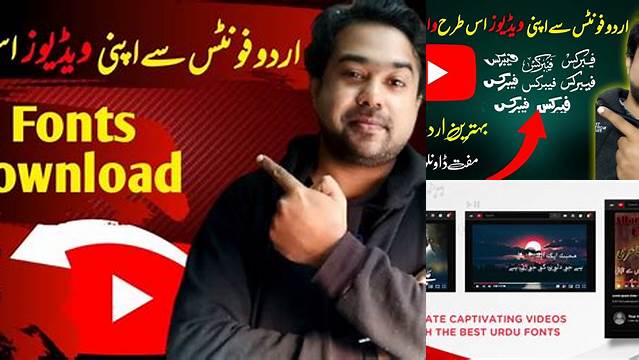
Best Urdu Fonts For Eye-Catching YouTube Thumbnails
Hey everyone! Creating awesome YouTube thumbnails is super important if you want those clicks and views. And if you're making content in Urdu, you know how crucial it is to have beautiful and readable Urdu fonts. So, let's dive into the world of Urdu fonts for YouTube thumbnails and explore some of the best options out there to make your videos pop! This guide will walk you through everything β from choosing the right font to actually using them in your thumbnail designs. Get ready to level up your thumbnail game, guys!
H2: Why Urdu Fonts Matter for Your YouTube Thumbnails
Alright, so why is using the right Urdu fonts for your YouTube thumbnails such a big deal? Well, think about it this way: your thumbnail is the first thing people see. It's the virtual handshake that either invites them to click or sends them scrolling. If your Urdu text looks blurry, unreadable, or just plain ugly, viewers are likely to skip right over it. That's a bummer, right? High-quality Urdu fonts not only look professional but also communicate your message clearly and effectively. They help you:
- Grab Attention: Distinctive fonts are eye-catching and make your thumbnail stand out from the crowd. In the sea of thumbnails, you need something special, and well-chosen Urdu fonts will do the trick.
- Enhance Readability: Clear fonts make it easy for viewers to quickly understand what your video is about, even at a glance. Nobody wants to squint to figure out your content.
- Boost Professionalism: Using well-designed fonts signals that you care about the quality of your content, which builds trust with your audience. It shows that you are detail-oriented.
- Communicate Emotion: Fonts have personalities! They can be bold, playful, serious, or elegant, helping you convey the mood of your video. Think about what you're trying to show.
- Brand Consistency: Choosing a consistent font for all your thumbnails helps establish your brand and make your content easily recognizable.
Choosing the right fonts is all about understanding your audience and your content. For instance, if you're creating comedy videos, you might go with a more playful font. If you're doing a serious educational series, a more elegant and readable font is a better option. You should also think about the colors, layout, and overall design of your thumbnail to make sure the Urdu fonts perfectly complement everything else. Remember, your thumbnail is a mini-advertisement for your video, so make it count with the right Urdu fonts!
H2: Top Urdu Font Choices for YouTube Thumbnails
Okay, let's get into some of the best Urdu fonts for your YouTube thumbnails. There are tons of options, but here are some of my top picks, along with why they work so well:
- Jameel Noori Nastaleeq: Ah, the classic! This is probably the most famous and widely used Urdu font. It's known for its beautiful calligraphy style, which is super elegant and easy to read. It's perfect for any kind of content β from religious videos to educational content. While Jameel Noori Nastaleeq is a great choice, make sure you use it at a legible size. Sometimes, the intricate design can be hard to read when it's too small.
- Nafees Nastaleeq: If you're looking for a slightly more modern take on Nastaleeq, Nafees Nastaleeq is an excellent option. It's still beautiful and flowing, but with a cleaner look. It's fantastic for tech reviews, lifestyle videos, or any content that requires a contemporary vibe.
- Alvi Nastaleeq: Similar to Jameel Noori Nastaleeq and Nafees Nastaleeq, Alvi Nastaleeq offers a slightly different style, often with a more condensed look. It can be great if you need to fit a lot of text into a small space without sacrificing readability.
- Roboto: Okay, hear me out! While not an Urdu font, Roboto is a fantastic sans-serif font that works brilliantly for short Urdu phrases and captions. Its clean lines and excellent readability make it perfect for subtitles or short pieces of text where clarity is key.
- Open Sans: Similar to Roboto, Open Sans is another great sans-serif option. It's super versatile and works well with Urdu fonts in your thumbnail design. Try it for a modern and clean look.
When selecting your fonts, consider the following: the overall style of your channel, the message you want to communicate, and the readability of the font at thumbnail size. Also, remember that you can mix and match fonts to create a more dynamic and engaging thumbnail. Don't be afraid to experiment and find what works best for you.
H3: Diving Deeper into Jameel Noori Nastaleeq
Let's give Jameel Noori Nastaleeq its own spotlight, because it's truly a cornerstone of Urdu typography. This font is more than just a collection of letters; itβs an art form. Developed by the late Khawaja Muhammad Sharif, it's become the de facto standard for Urdu text, and you'll see it everywhere from books to websites to, of course, YouTube thumbnails. The flowing curves and the way the letters connect create a feeling of elegance and sophistication. The key to using Jameel Noori Nastaleeq effectively in your thumbnails is to keep it large enough so that the beautiful details of the font are visible.